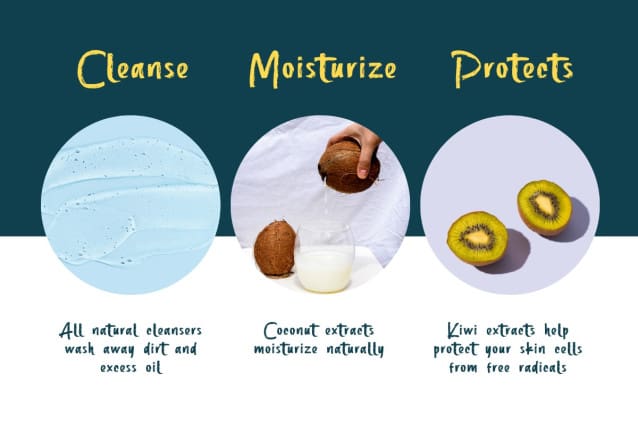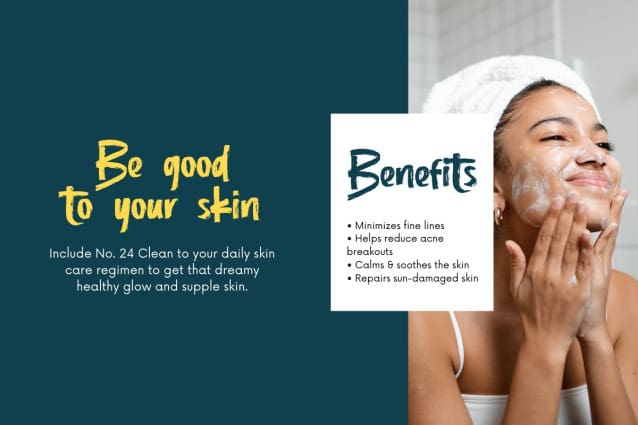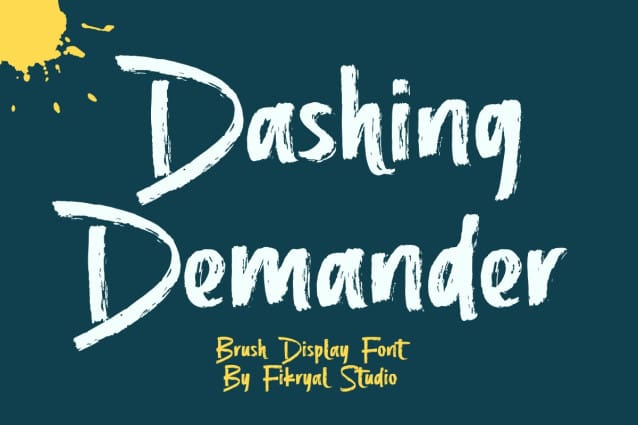
Dashing Demander Font
Dashing Demander Font is a bold and expressive brush font crafted to bring energy and creativity to your projects. With its hand-painted style, it exudes a dynamic and organic feel, making it a perfect choice for cosmetic branding, fashion, packaging, and other creative endeavors.
This font ensures your designs stand out with confidence and a modern artistic touch.